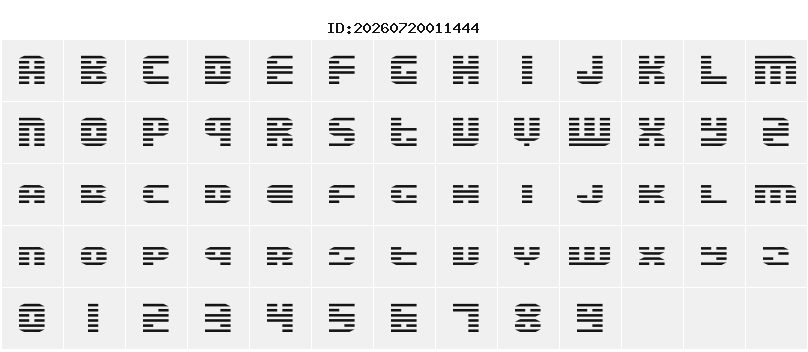
Enduro Dos Preview
• Font Name: Enduro Dos
• Full Font Name: Enduro Dos
About Enduro Dos.ttf
Enduro Dos.ttf is a modern, elegant sans-serif font designed for ultimate readability and visual harmony. Perfect for branding, headlines, web design, and print materials.